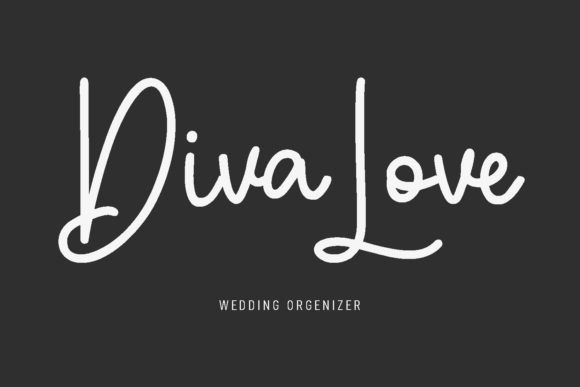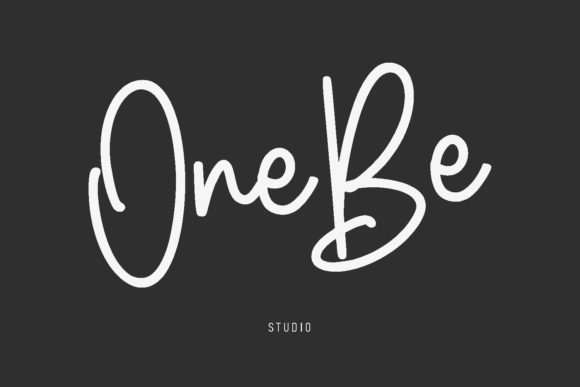
Honeyloops Font
db-ku.com - Script & Handwritten -- Honeyloops is a fancy and cursive script font. It features medium mono-line strokes, fun characters with a bit of ligatures and alternates. Add it to any of your designs, and enjoy the results!